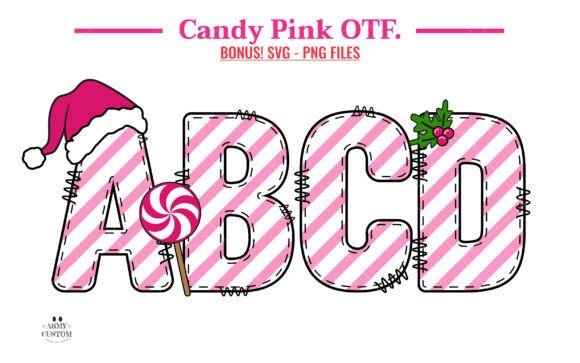
Candy Pink Font: Elevate Your Holiday Designs with Candy Cane Christmas Font
The holiday season is upon us, and with it comes the desire to create festive and fun designs that capture the spirit of the season. One of the most iconic and recognizable colors associated with Christmas is candy pink, a vibrant and playful hue that instantly evokes feelings of joy and cheer. If you’re looking to add a pop of color to your holiday designs, look no further than the Candy Cane Christmas Font, a delightful infusion of color that will invigorate your artistic toolbox.
Introducing Candy Cane Christmas Font
Candy Cane Christmas Font is a unique and festive font that exudes a vibrant, festive joie de vivre. This font is the perfect addition to your holiday designs, whether you’re creating cards, invitations, or social media graphics. With its bold and colorful design, Candy Cane Christmas Font is sure to capture the essence of the season and add a touch of holiday cheer to your creations.
Key Features of Candy Cane Christmas Font
- Vibrant and Festive Design: Candy Cane Christmas Font features a bold and colorful design that’s perfect for capturing the spirit of the holiday season.
Using Candy Cane Christmas Font in Your Designs
Candy Cane Christmas Font is easy to use and can be incorporated into a variety of designs. Here are a few ideas to get you started:
- Holiday Cards: Use Candy Cane Christmas Font to create festive and fun holiday cards for your friends and family.
- Social Media Graphics: Add a touch of holiday cheer to your social media graphics with Candy Cane Christmas Font.
- Invitations: Create festive and fun invitations for your holiday party or event with Candy Cane Christmas Font.
- DIY Projects: Use Candy Cane Christmas Font to add a personal touch to your DIY projects, such as scrapbooking or paper crafting.
Tips for Using Candy Cane Christmas Font
Here are a few tips for using Candy Cane Christmas Font in your designs:
- Experiment with Different Colors: While the candy pink color of Candy Cane Christmas Font is festive and fun, don’t be afraid to experiment with different colors to create a unique look.
- Pair with Other Fonts: Pair Candy Cane Christmas Font with other fonts to create a unique and interesting design.
- Use in Combination with Images: Use Candy Cane Christmas Font in combination with images, such as holiday-themed illustrations or photographs, to create a festive and fun design.
| Font Name | Candy Pink Font |
| Author | Army Custom |
Candy Cane Christmas Font is a fun and festive font that’s perfect for capturing the spirit of the holiday season. With its bold and colorful design, this font is sure to add a touch of holiday cheer to your designs. Whether you’re creating holiday cards, social media graphics, or DIY projects, Candy Cane Christmas Font is the perfect choice.
- What is Candy Cane Christmas Font? Candy Cane Christmas Font is a fun and festive font that’s perfect for capturing the spirit of the holiday season.